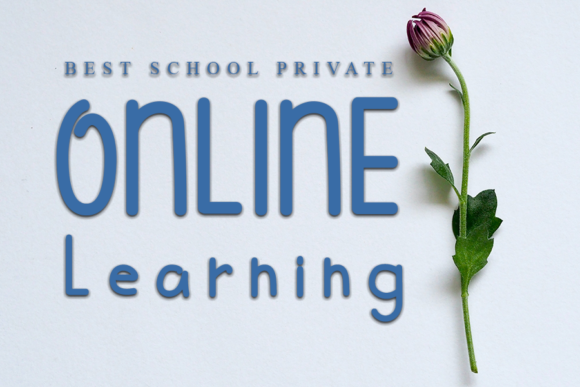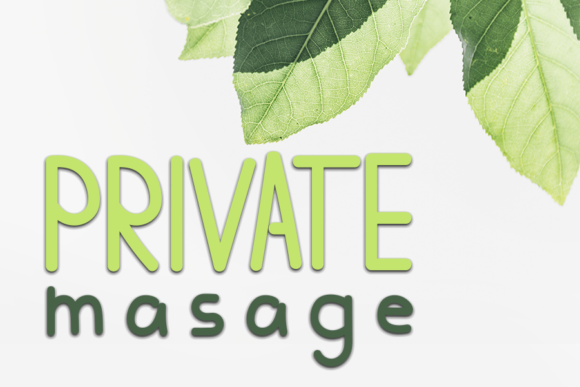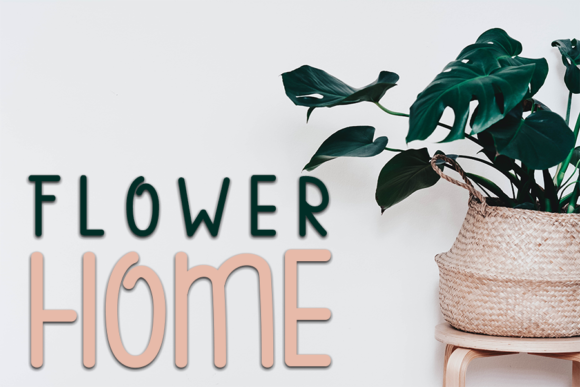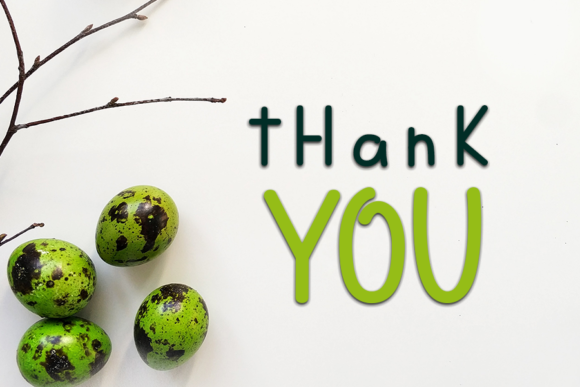
Introduction to Smart Schools Font
Smart Schools is a beautiful handwritten font.
Clean and a little bit quirky, this font is the perfect fit for all of your logos, branding, social media, and crafty DIY projects .